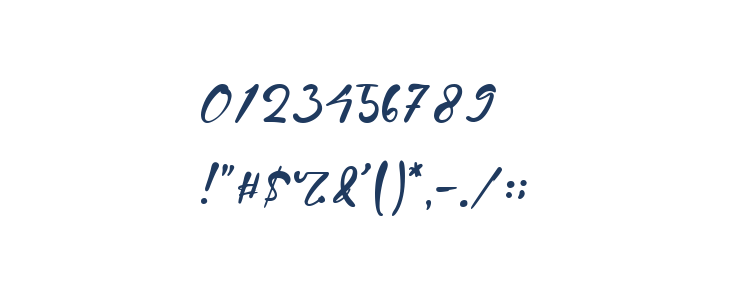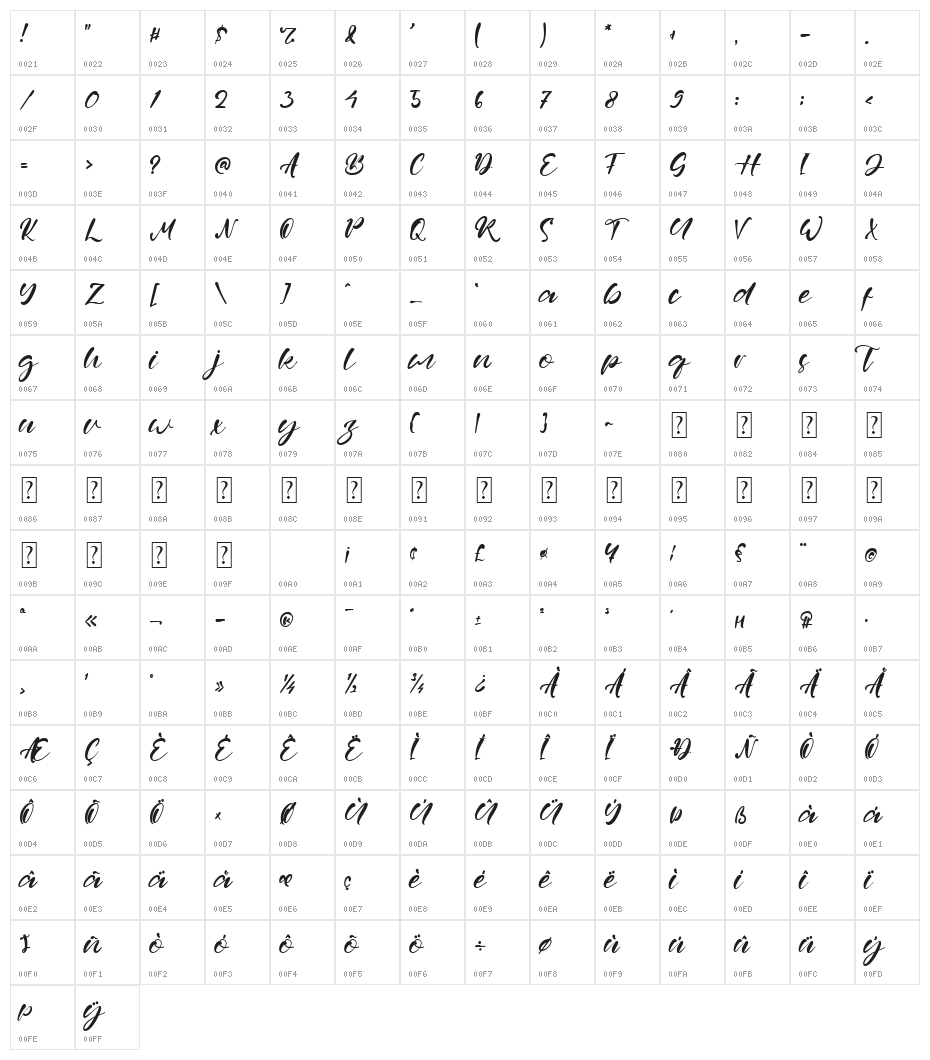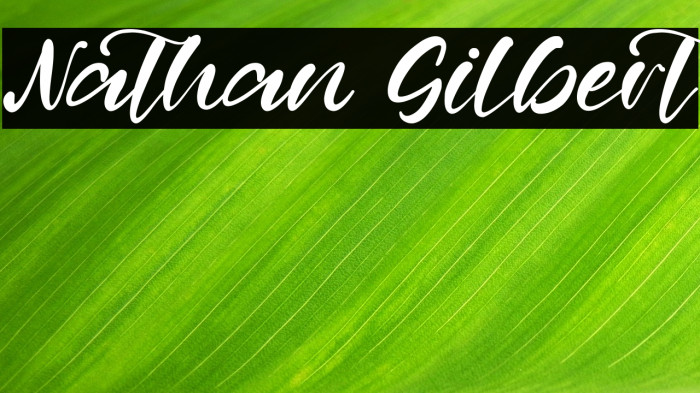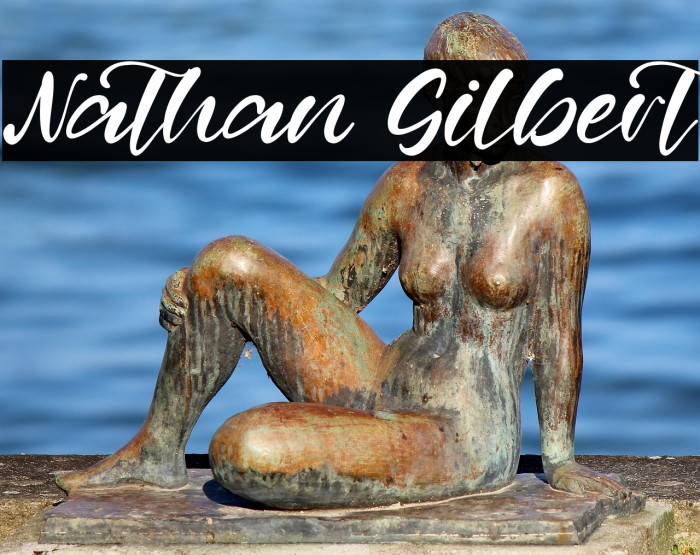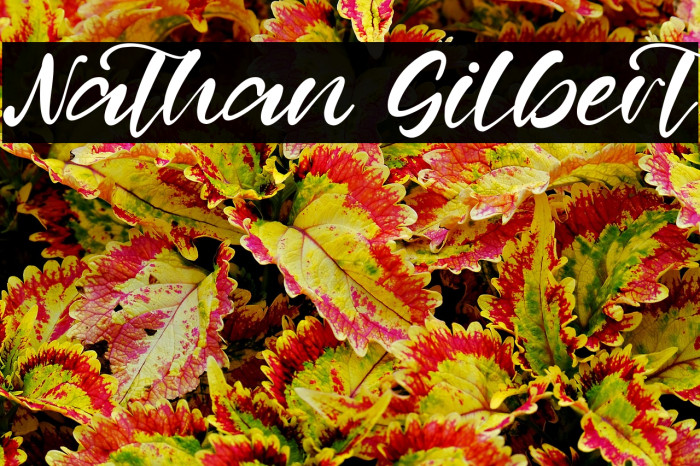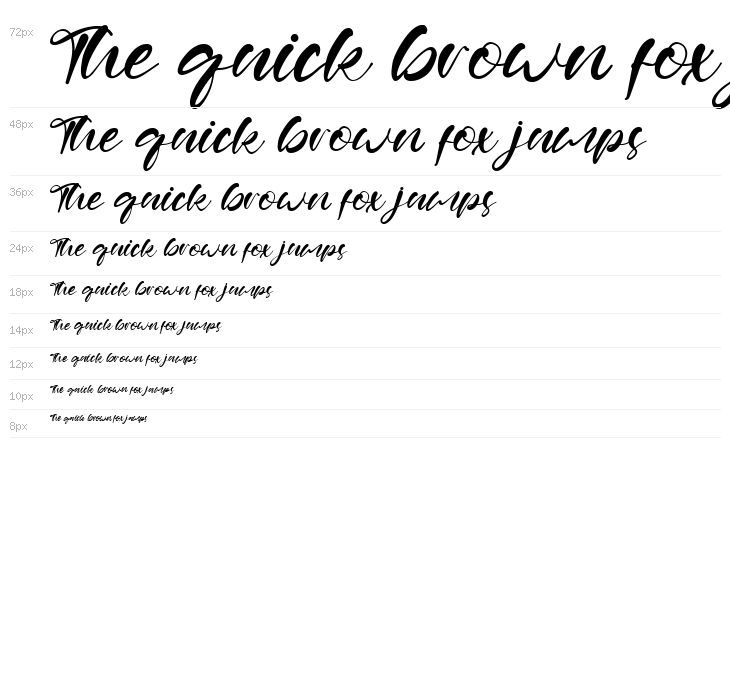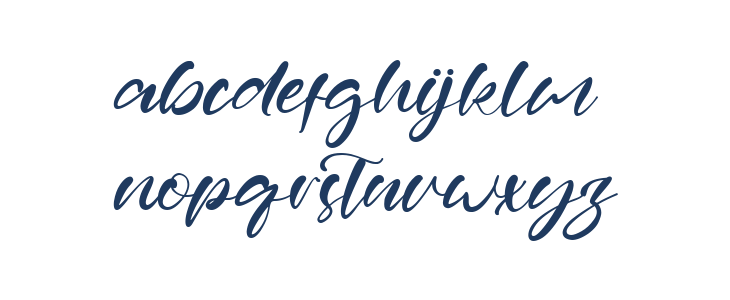
Nathan Gilbert Font
Nathan Gilbert Description
This font features a flowing, cursive style with elegant, sweeping strokes that give it a sophisticated and artistic appearance. The uppercase letters are bold and dynamic, with a slight slant that adds to the fluidity of the design. The lowercase letters maintain the same graceful curves, creating a harmonious and cohesive look. The numerals are consistent with the overall style, featuring similar curves and a sense of movement. Special characters are integrated seamlessly, enhancing the font's versatility. This font is ideal for projects that require a touch of elegance and creativity, such as invitations, branding, and artistic designs.
| Overall Style | Elegant, Artistic |
| Use Case | Headlines, Invitations, Branding |
| Proposed Projects | Ideal for wedding invitations, branding, artistic designs, and elegant stationery. |